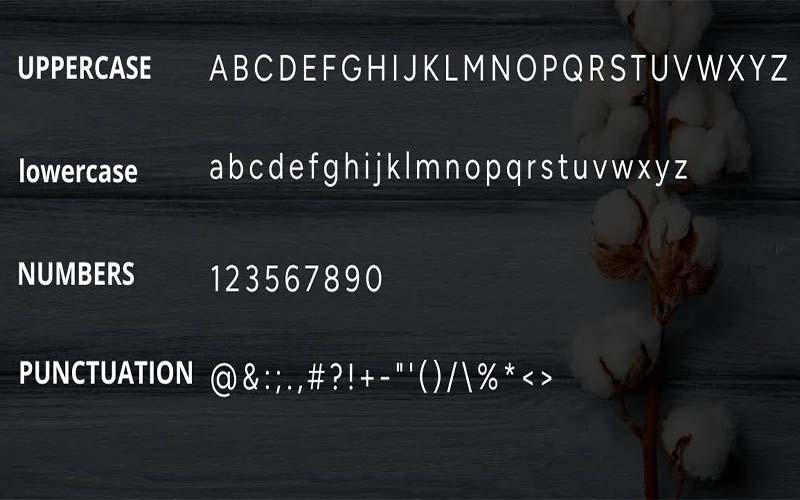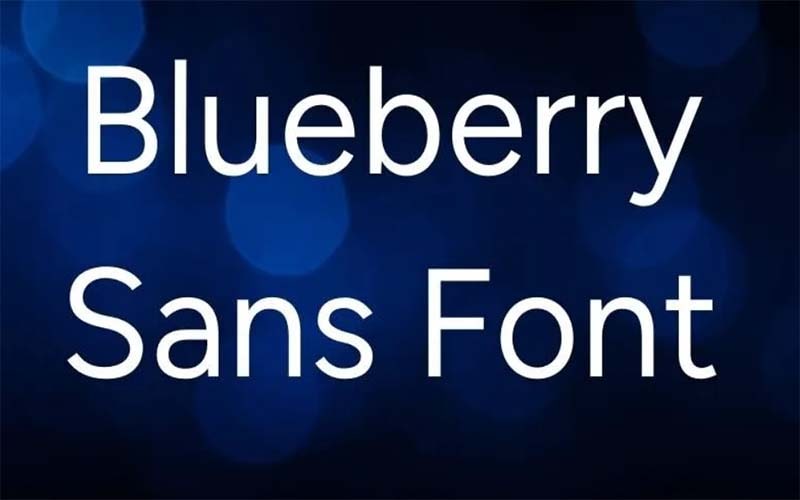
Blueberry Sans Font is a stylish sans serif and display font. All letters have strong strokes and a modern appearance. As a result, it has become the finest option for modern designs.
Erik D. Kennedy is the primary designer of this fabulous font in 2021. Due to its neat and clean texture, many designers used this font for designing their projects.
The Subfamily of this font is Regular and has different unique styles such as”Blueberry Sans Black”, “Blueberry Sans Extra Bold”, “Blueberry Sans Light”, “Blueberry Sans Medium” and “Blueberry Sans Regular”.
This fantastic typeface includes 26 uppercase and lowercase characters, as well as punctuation marks and digits. Examine its lovely texture.
Blueberry Sans Font
| Font Name: | Blueberry Sans Font |
| Style: | Display, Sans serif, Typeface |
| Font Designer: | Erik D. Kennedy |
Due to its unique features, you can use this font for many purposes such as logo designs, creating business cards, poster designs, Web development, and simple branding.